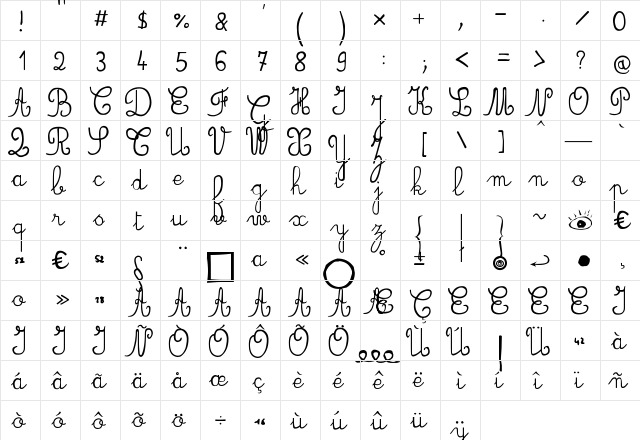
JBCursive Regular
| Designer | Jean Boyault |
Design Context for JBCursive Typeface
JBCursive brings a calligraphic fluidity to the page — its connecting strokes and expressive curves give it an unmistakably human quality.